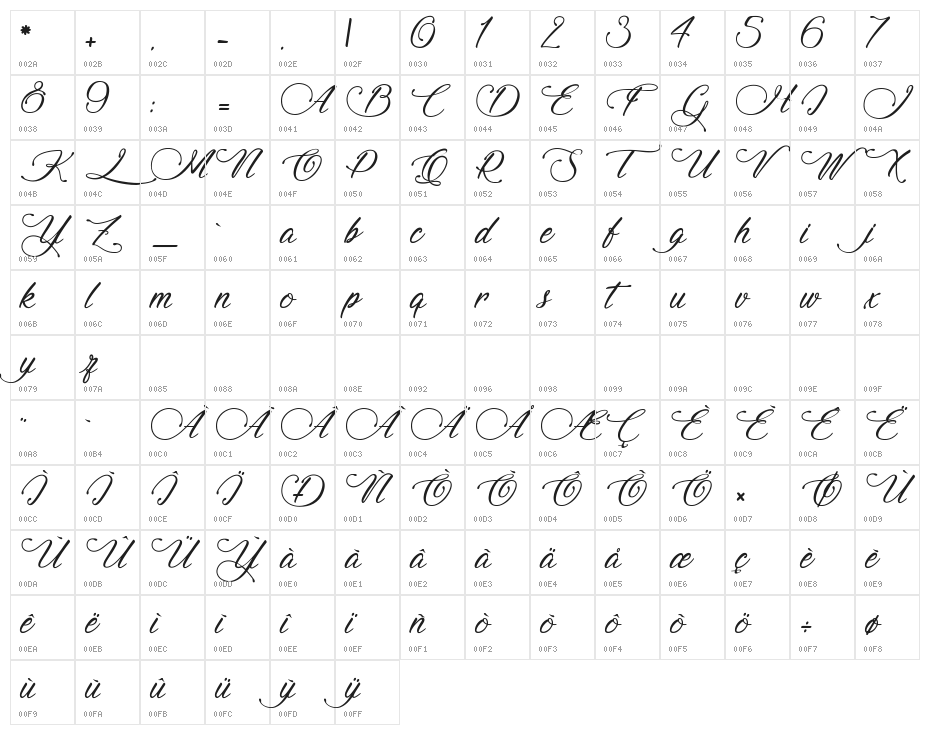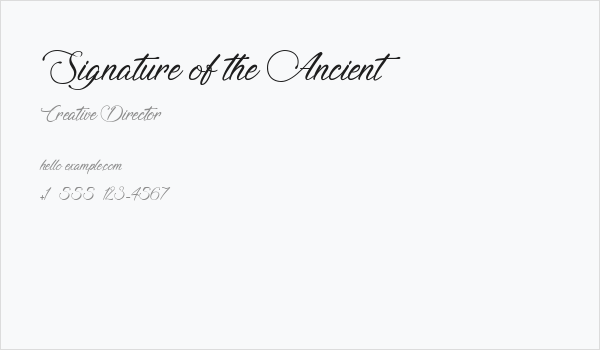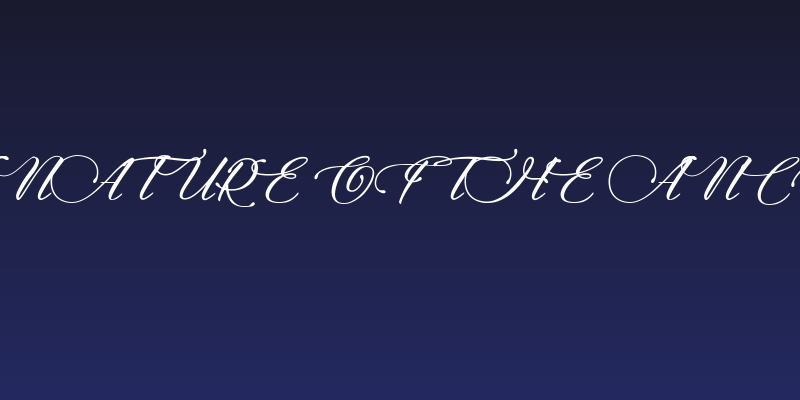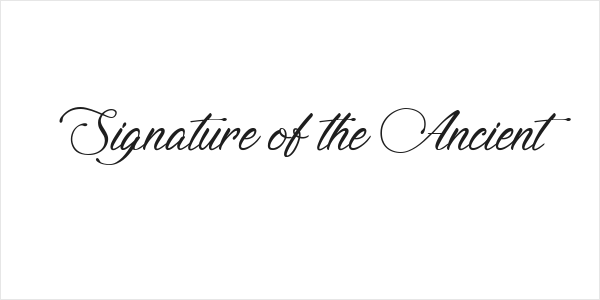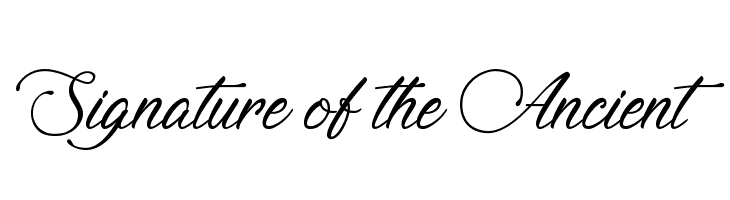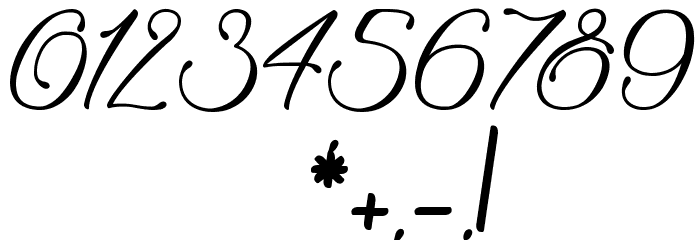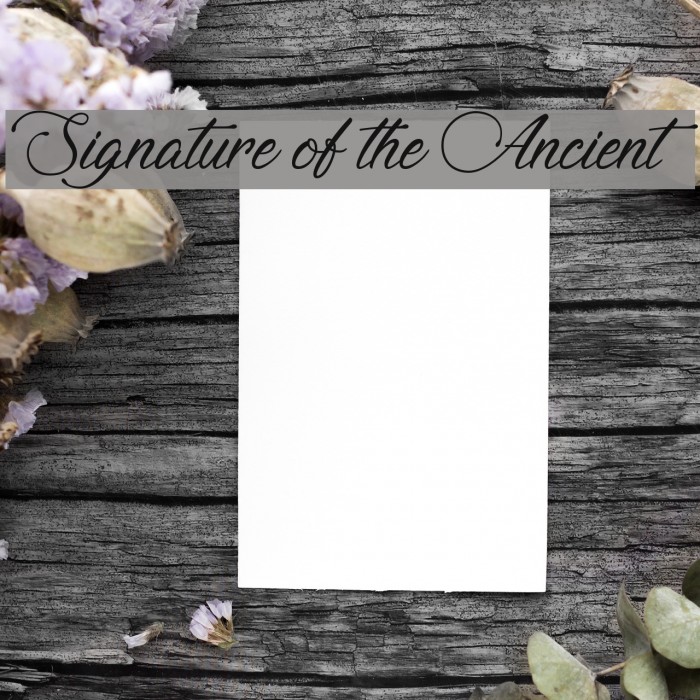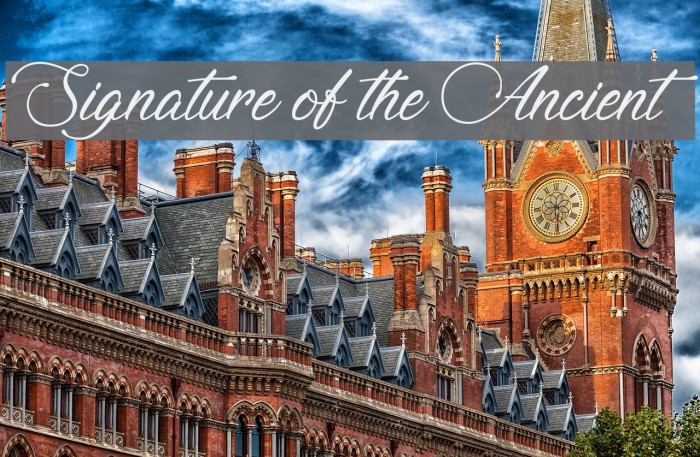
Signature of the Ancient Font
✎ Calligraphic
Signature of the Ancient Description
This font exudes an elegant and sophisticated style, reminiscent of classic calligraphy with a modern twist. The uppercase letters are intricately designed with flowing loops and swirls, giving them a sense of movement and grace. The lowercase letters maintain a consistent flow, with smooth, connected strokes that enhance readability while retaining an artistic flair. The numerals are stylishly crafted, matching the overall aesthetic with their rounded forms and subtle embellishments. Special characters are thoughtfully integrated, maintaining the font's cohesive look. This font is perfect for projects that require a touch of elegance and sophistication, such as wedding invitations, formal event programs, or luxury branding.
| Overall Style | Classic |
| Use Case | Logos, Invitations, Decorative text |
| Proposed Projects | Ideal for wedding invitations, luxury branding, and formal event programs. |